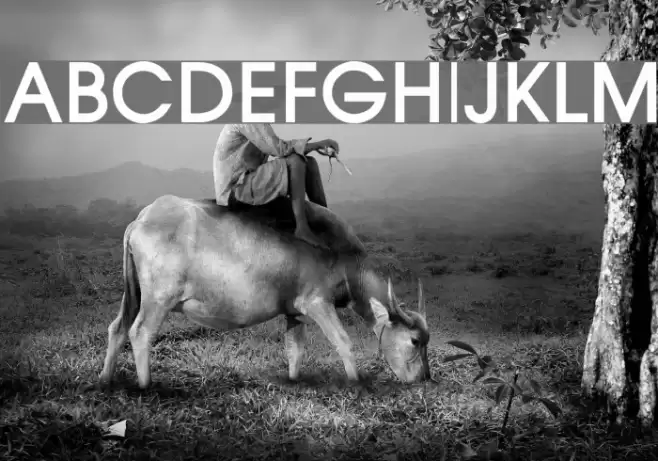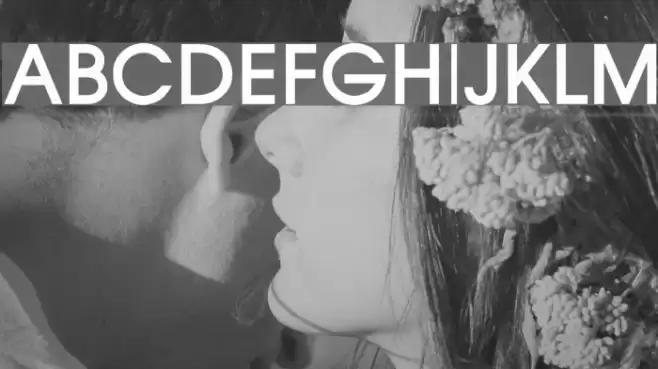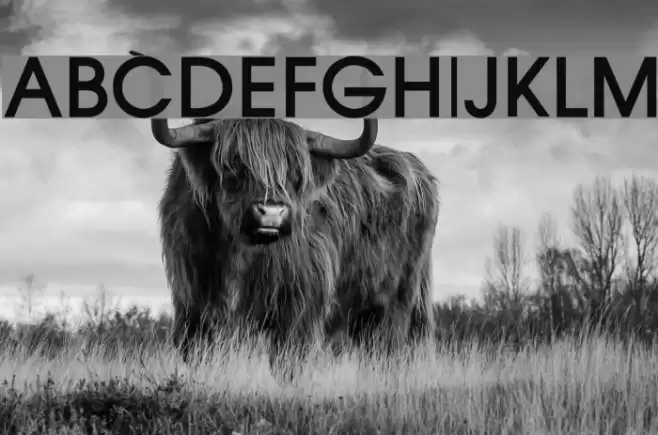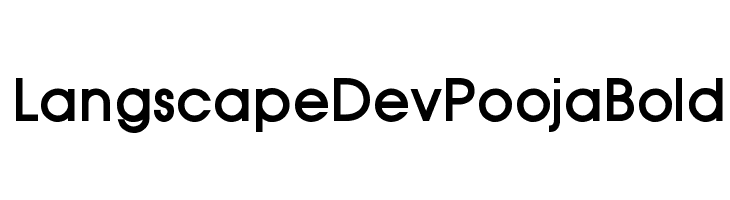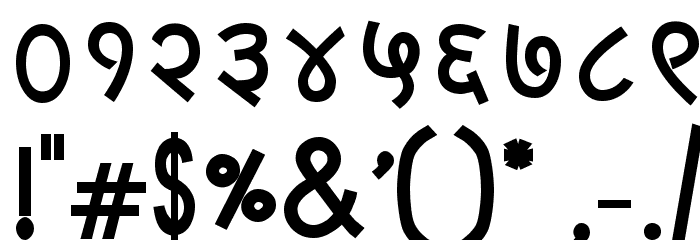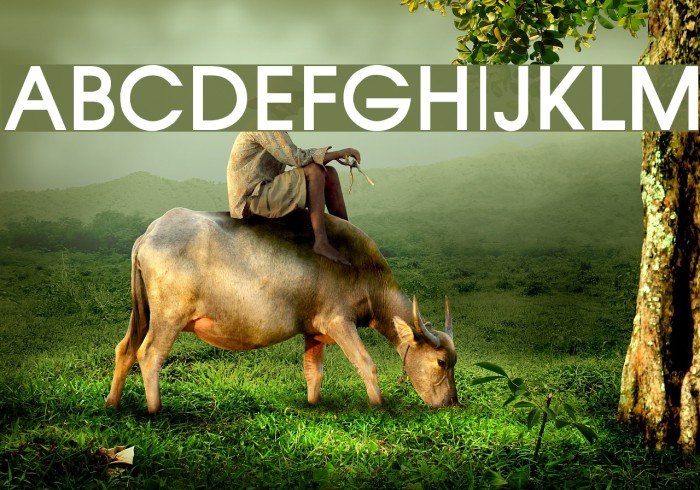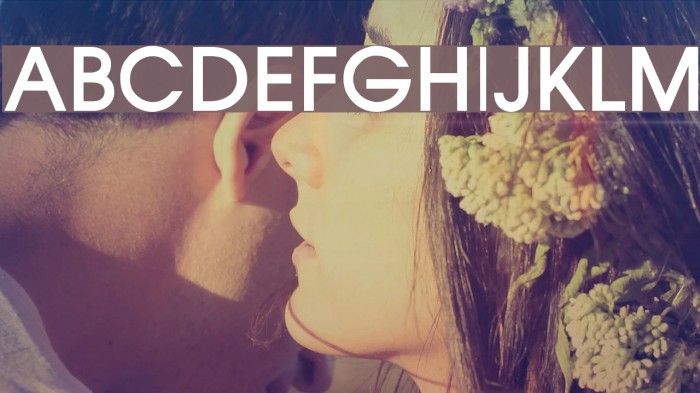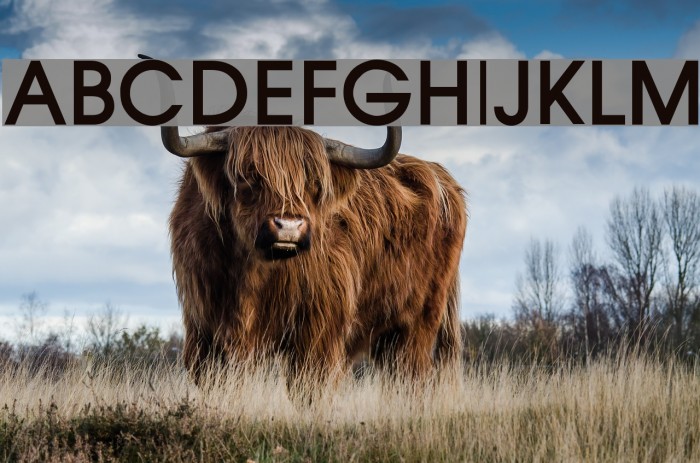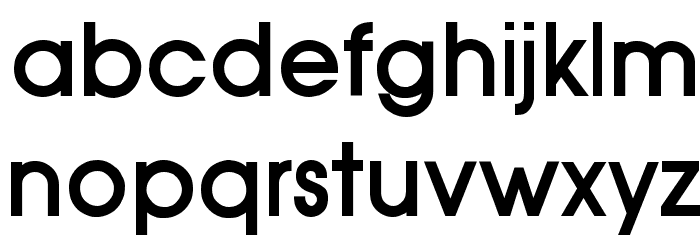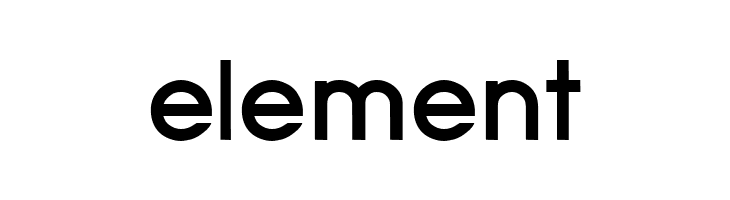
LangscapeDevPoojaBold Font
LangscapeDevPoojaBold Description
This font exhibits a bold and modern sans-serif style, characterized by clean lines and a geometric structure. The uppercase and lowercase letters maintain a consistent weight, contributing to a uniform appearance. The numerals are distinct and easily readable, while the special characters are designed to complement the overall aesthetic. The font's boldness makes it suitable for attention-grabbing headlines and impactful designs. Its geometric nature provides a contemporary feel, making it versatile for various digital and print applications.
A bold, modern sans-serif font with geometric lines and a uniform appearance from Uncategorized fonts.